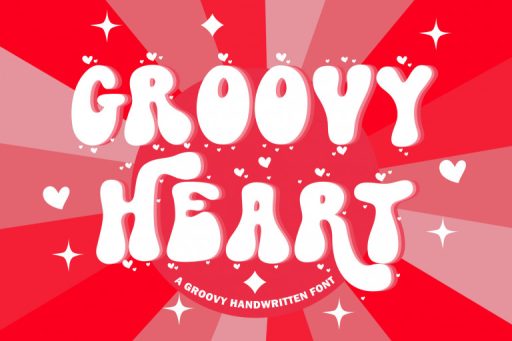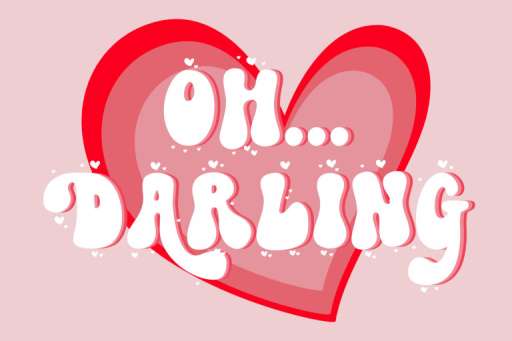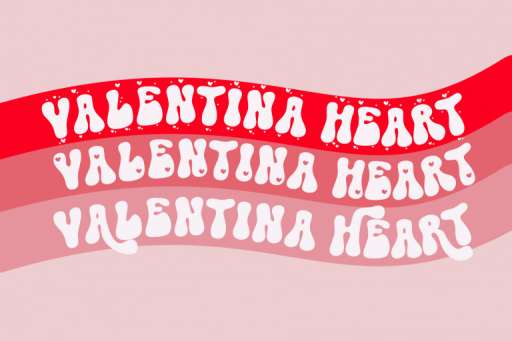
Groovy Heart Font
Groovy Heart – Retro Groovy Font
Groovy Heart is a Retro Groovy Font Style, this font is perfect for logo, headings, branding, magazine, cover album, book cover, game title, apparel design, quotes, invitations, flyer, poster, greeting cards, product packaging, printed quotes, etc. Groovy Heart comes with several versions: solid, heart & highlight heart characters.
Groovy Heart Features :
• Alternate
• Stylistic Set SS01, SS02 & SS03
• Multilingual Support